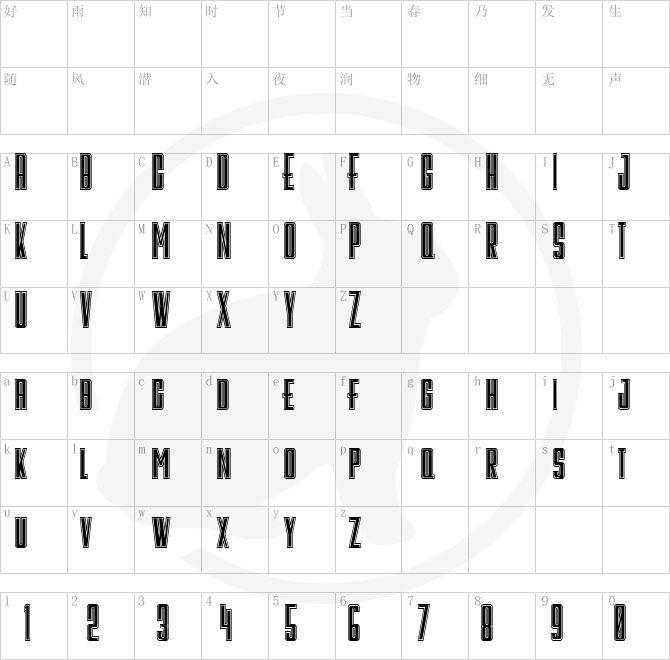
- Font Name:Galah Panjang College
Galah-Panjang-College.ttf is a very beautiful artistic font, Galah-Panjang-College.ttf is widely used in the design and printing of various books and pictures,Galah-Panjang-College.ttf has a strong visual impact,Galah-Panjang-College.ttf is a commonly used font in newspapers, magazines and books, and is used in posters, e-commerce Poster design, store design, logo design, font design and other fields.Galah-Panjang-College.